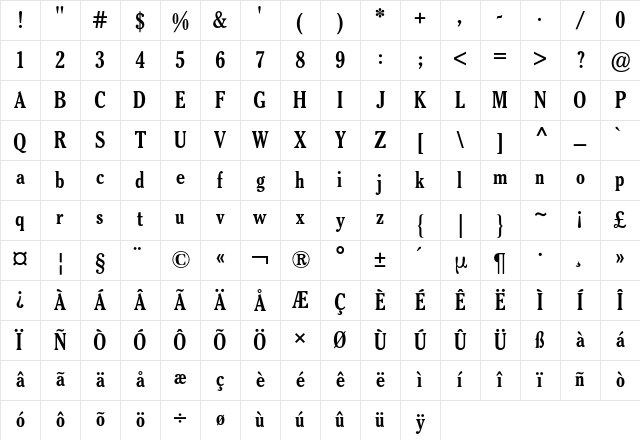
Complete Cheltenham ATF Old Style BQ Regular glyph index. Displaying only characters natively supported by Cheltenham ATF Old Style BQ Regular font.
Cheltenham ATF Old Style BQ is a composed and adaptable typeface that performs quietly and consistently across a wide range of design contexts.